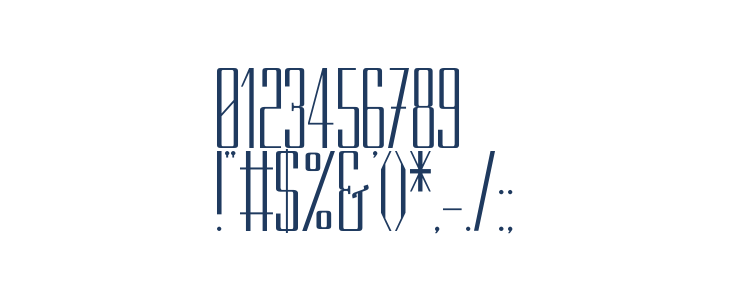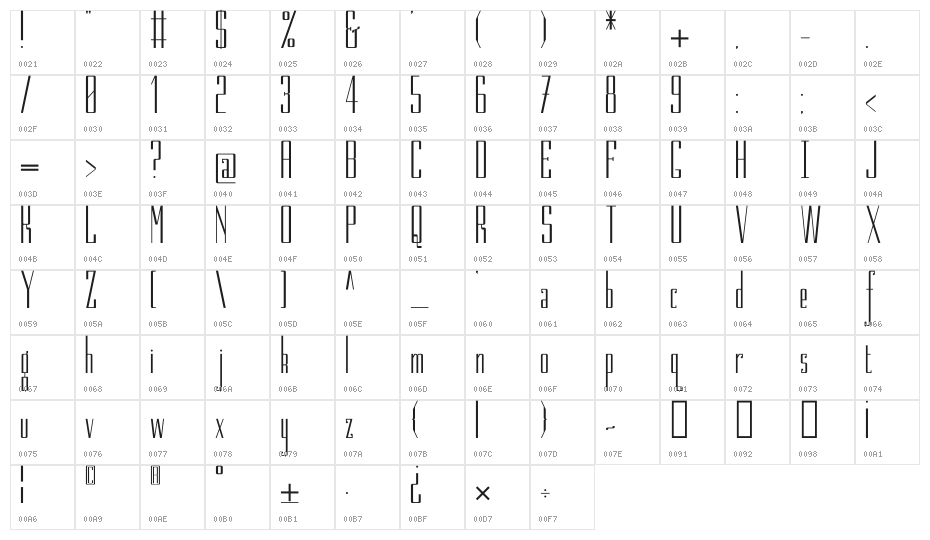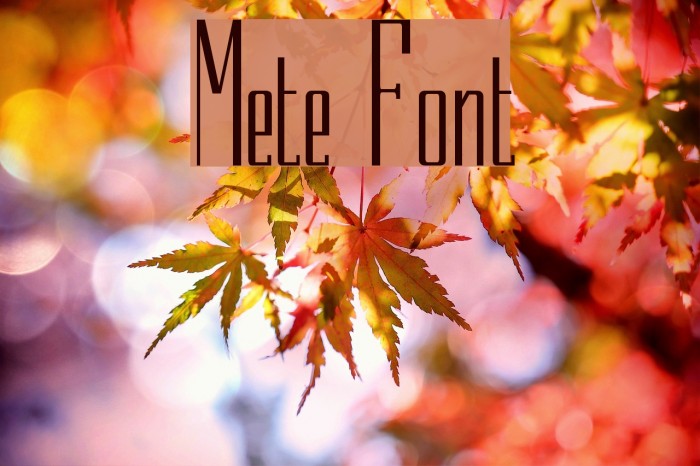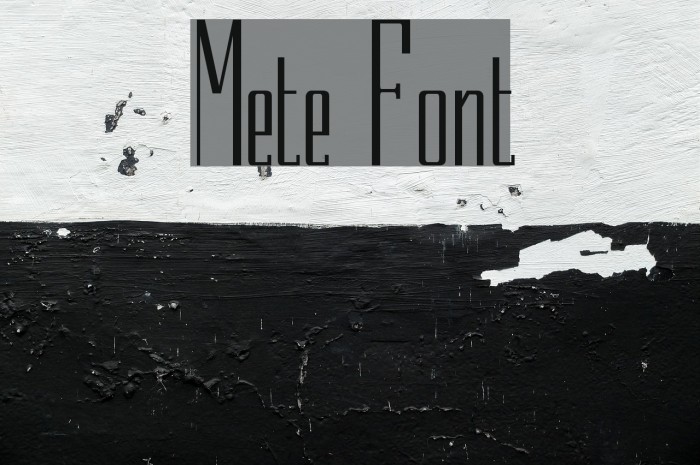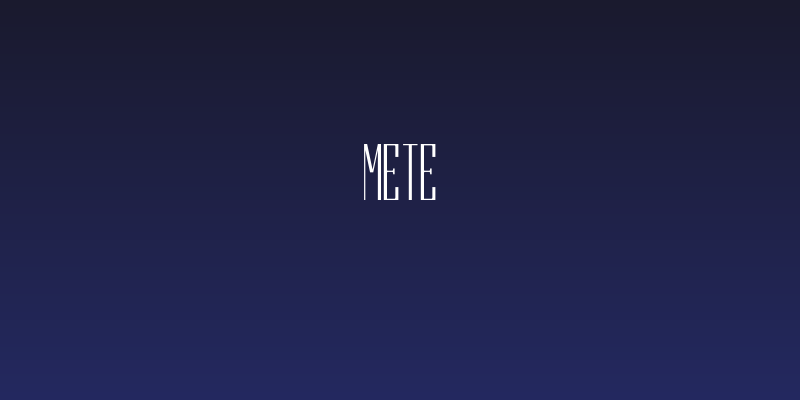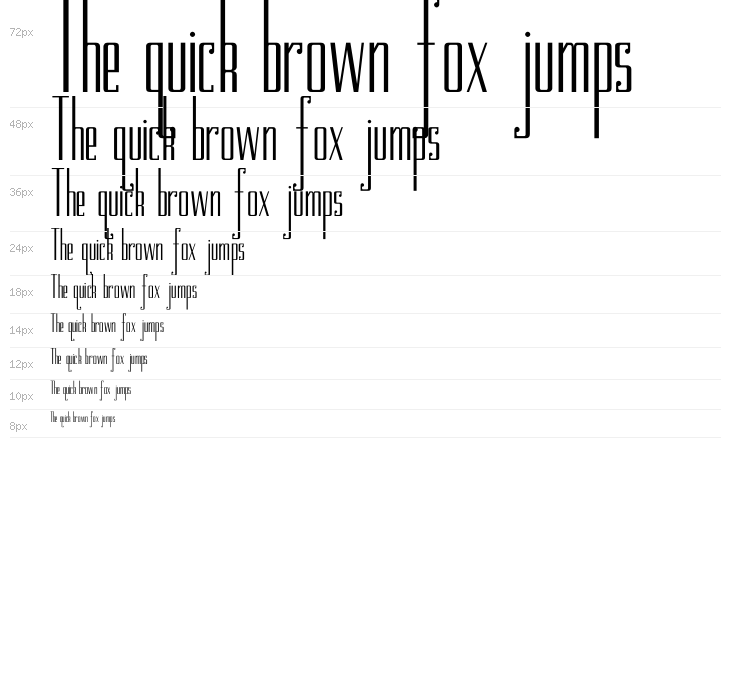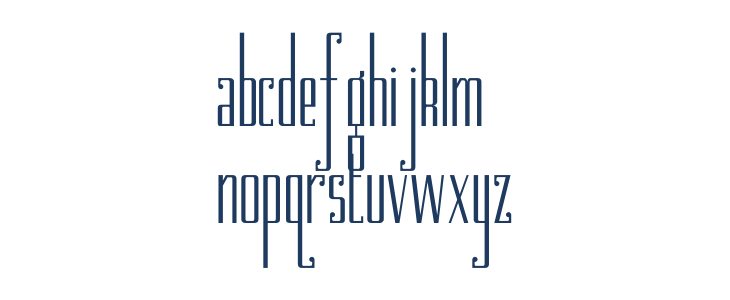
Mete Font
Mete Description
This font features an ultra-condensed and elongated design, characterized by its tall and narrow letterforms. The strokes are thin and consistent, creating a sleek and modern appearance. The uppercase letters are particularly striking, with a vertical emphasis that gives a sense of height and elegance. The lowercase letters maintain the same narrow structure, ensuring a cohesive look across different text sizes. Numbers and special characters follow the same design principles, offering a uniform and stylish appearance. The overall aesthetic is minimalistic yet distinctive, making it suitable for contemporary design projects.
| Proposed Projects | Ideal for fashion magazines, modern branding, posters, and editorial design. |